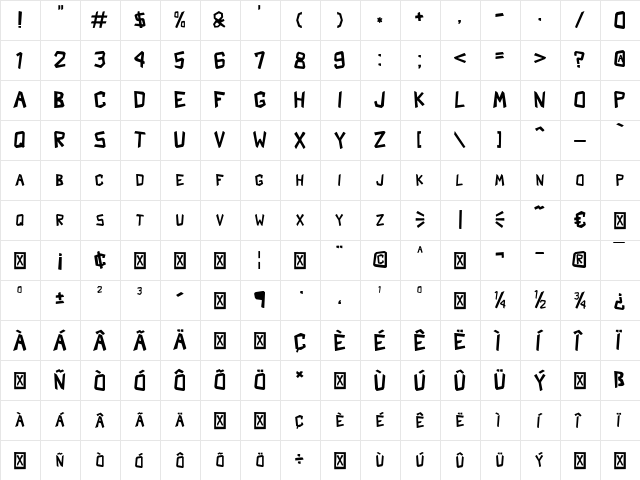
Shark Crash Font Preview
Design Context for Shark Crash Typeface
Shark Crash is a composed and adaptable typeface that performs quietly and consistently across a wide range of design contexts.